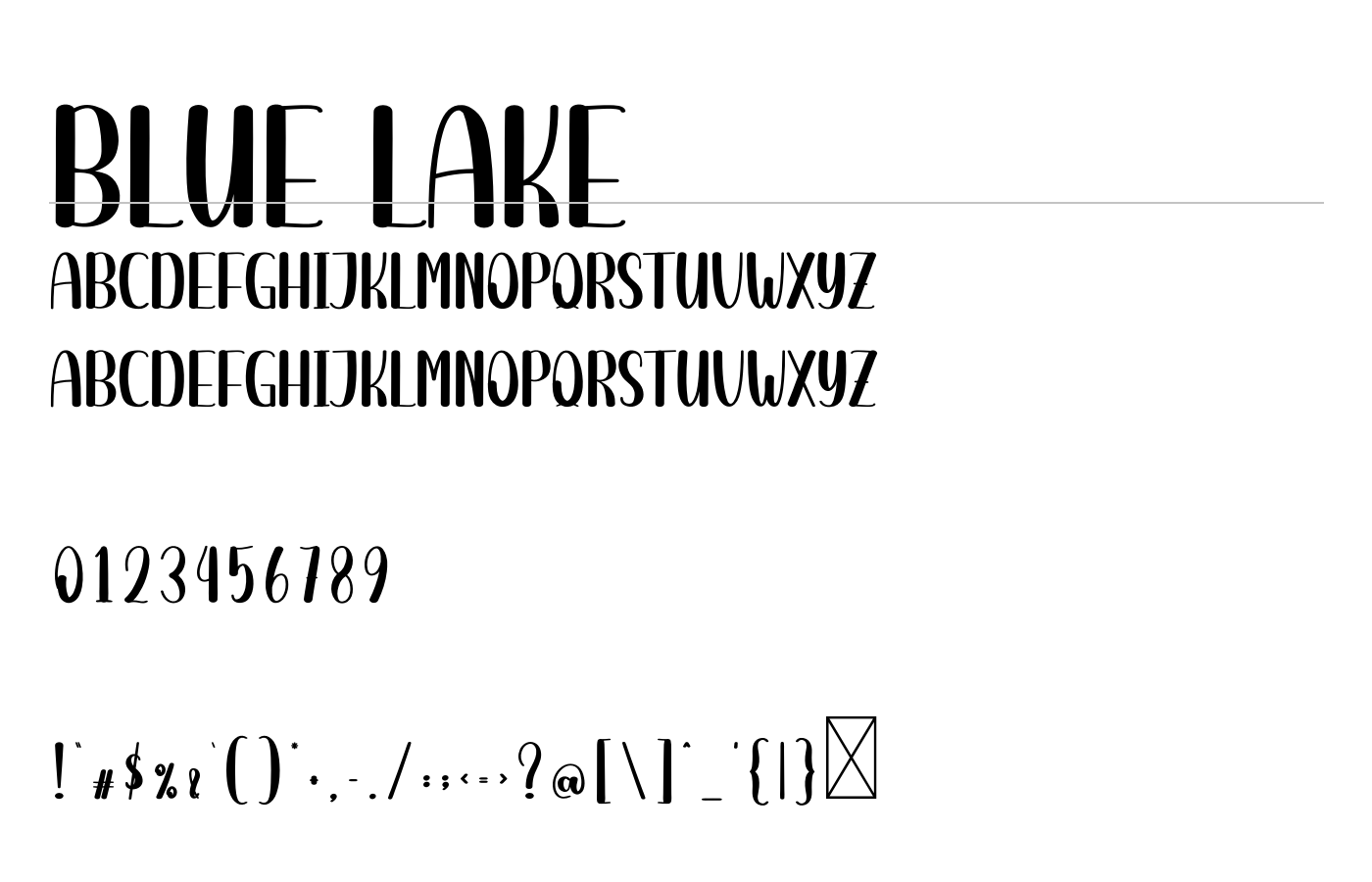
Blue Lake is a playful and tall sans serif font with a hand-drawn, narrow structure that gives it a quirky, whimsical feel. Its uneven strokes, slightly condensed letterforms, and charmingly irregular details make it perfect for creative, informal designs like children’s books, greeting cards, or casual branding projects. This font adds a lighthearted and approachable personality while remaining clean and readable.
Blue Lake Font
About Blue Lake Font